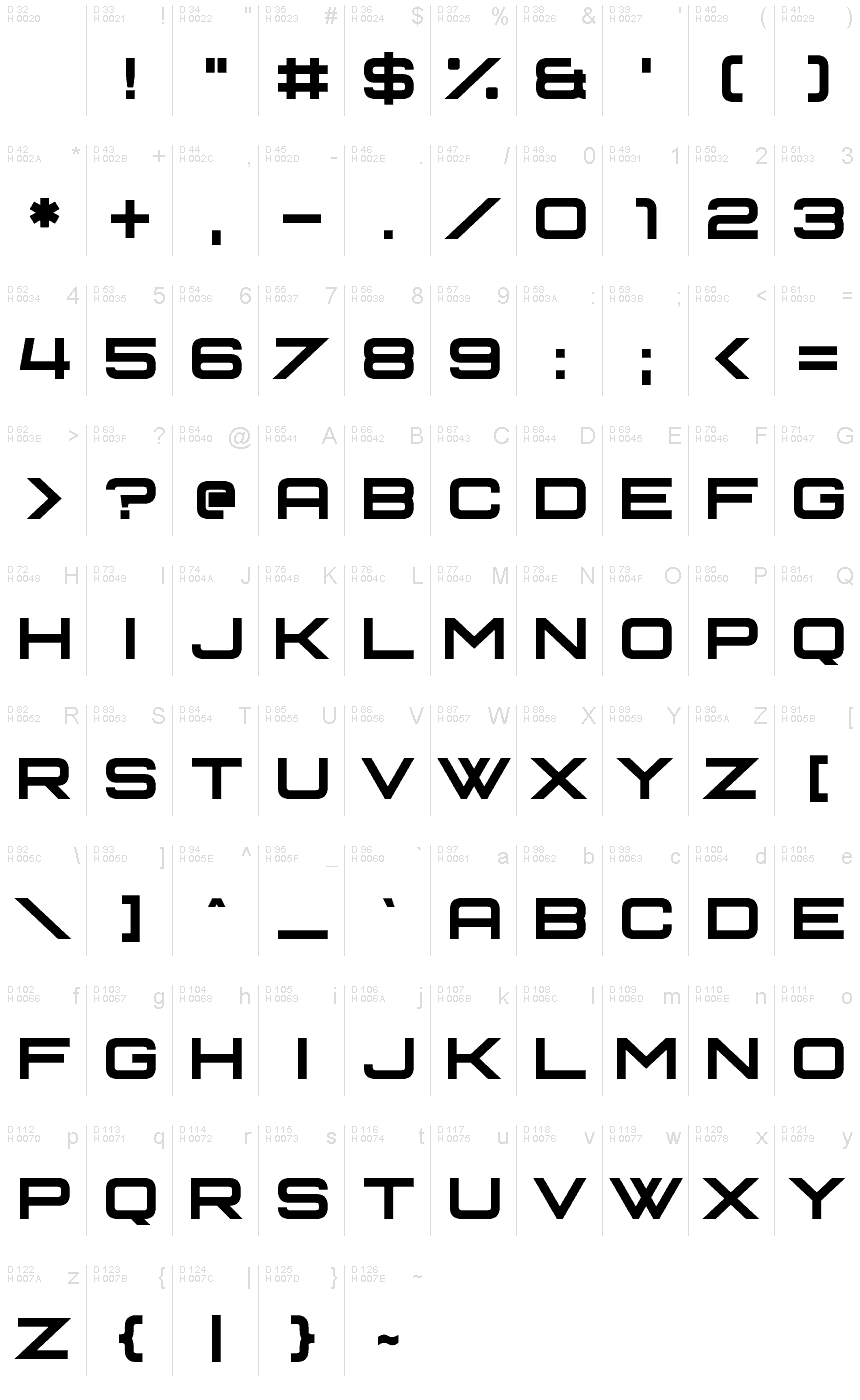
Telematic
Telematic is a geometric sans serif font with an emphasis on symmetry and clarity. This means it’s incredibly legible, making it the ideal typeface for websites, presentations, and any type of documentation that needs to be easily read.
Its clean strokes, and lack of any decorative elements convey modern industrial strength and can be combined with other typefaces for more dynamic projects. This font from Chequered Ink is a free resource that comes in OTF format and can be used for branding, logos, packaging, invitation cards, and flyers, among many other purposes.
Telematic by Chequered Ink.